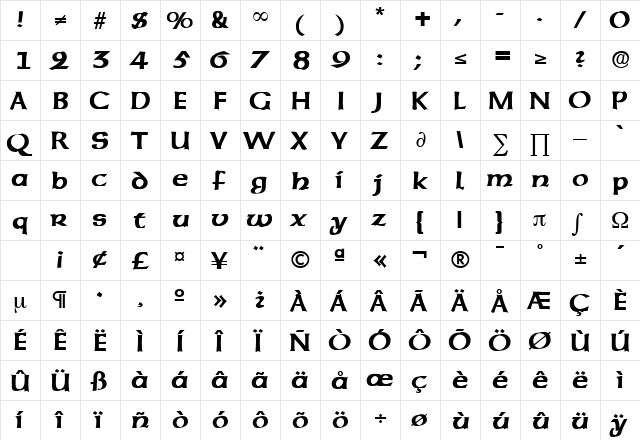
AmericanUnciale DB Medium
Design Context for AmericanUnciale DB Typeface
AmericanUnciale DB is a composed and adaptable typeface that performs quietly and consistently across a wide range of design contexts.